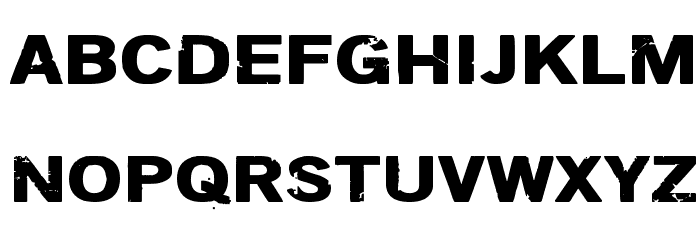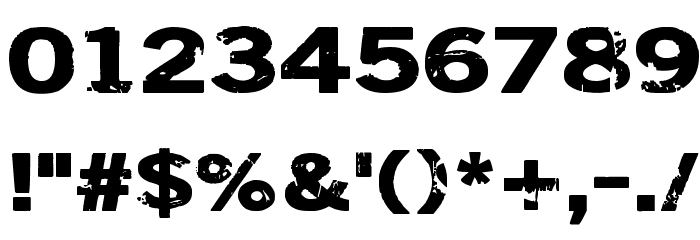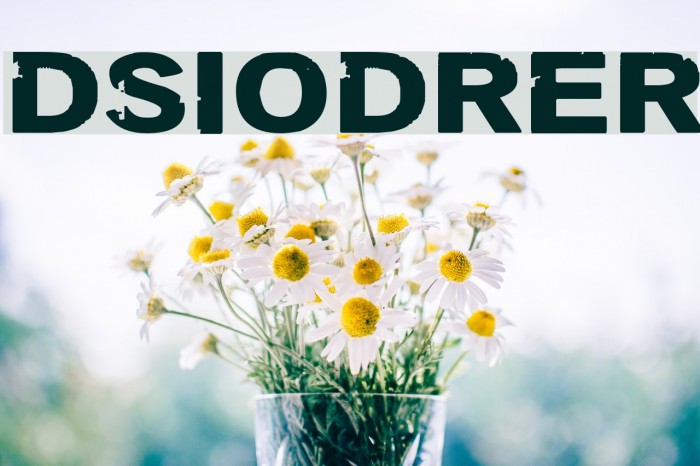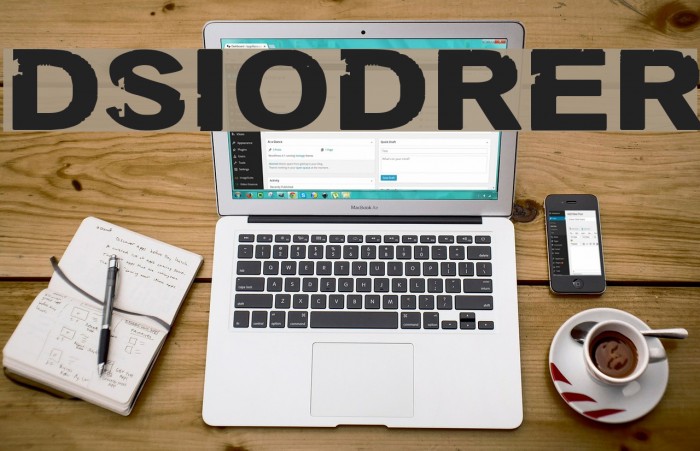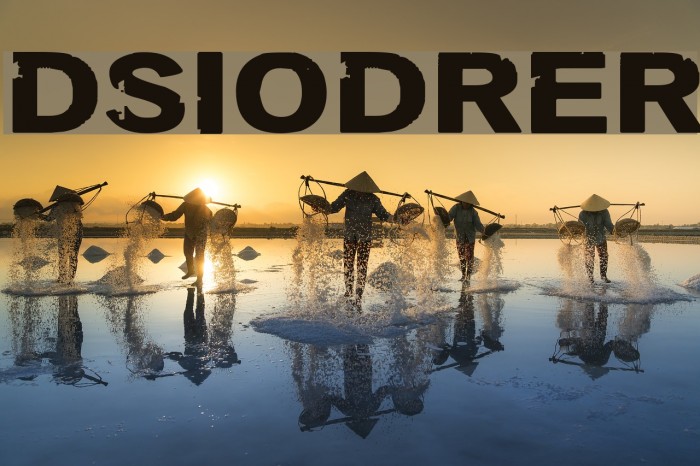
DSIODRER Font
This font features a bold and distressed style, with a rugged and worn appearance that gives it a unique character. The uppercase letters are strong and impactful, making it ideal for attention-grabbing designs. The numbers and special characters maintain the same distressed look, ensuring consistency across all elements. The font's rough texture adds a vintage and industrial feel, making it suitable for projects that require a gritty and edgy aesthetic.
A bold, distressed font with a rugged, vintage style.
- Proposed Projects: Ideal for posters, album covers, branding for edgy products, and any design needing a bold, vintage look.
- Overall Style: Vintage, Industrial